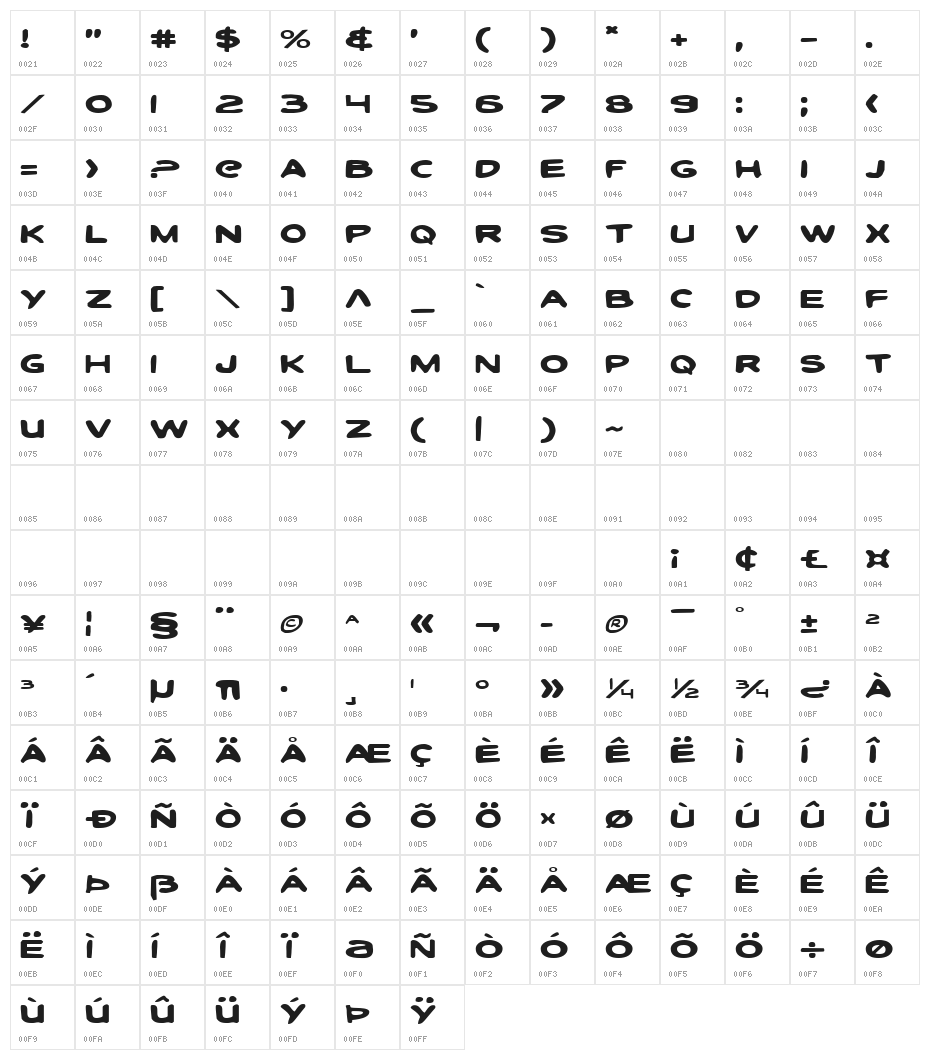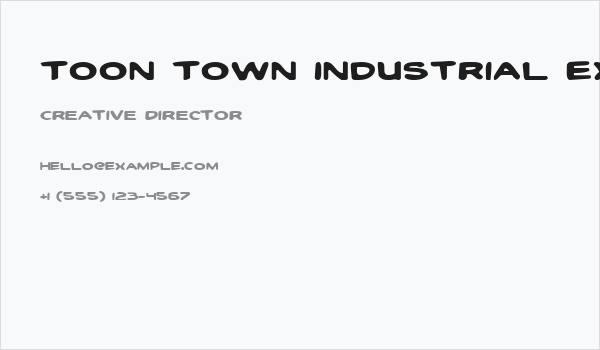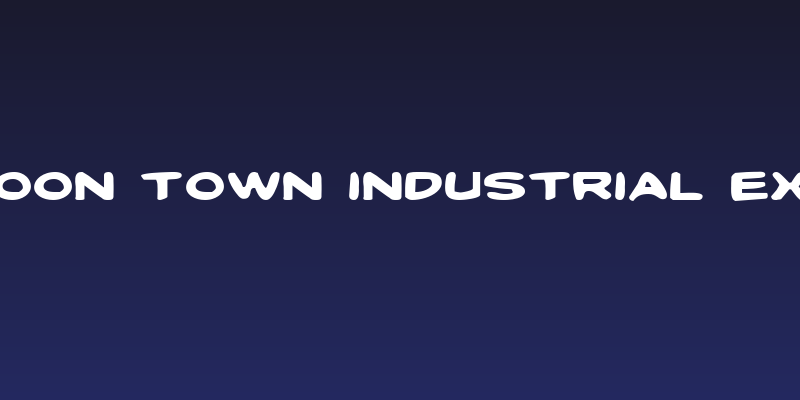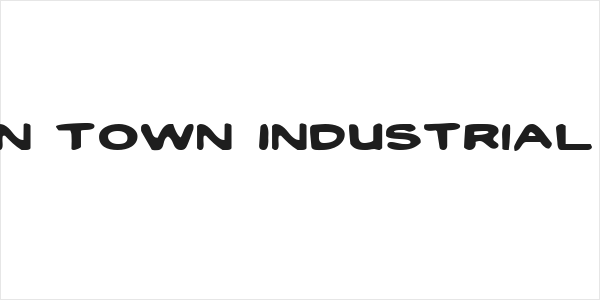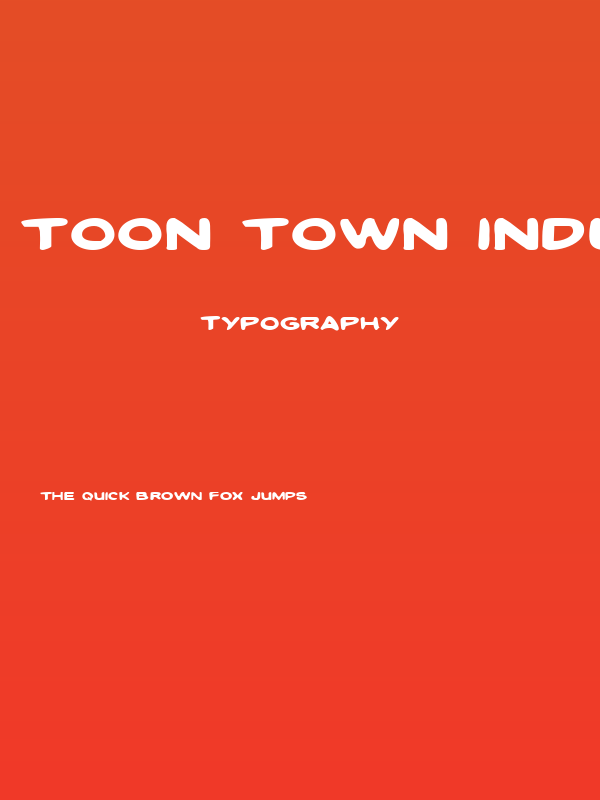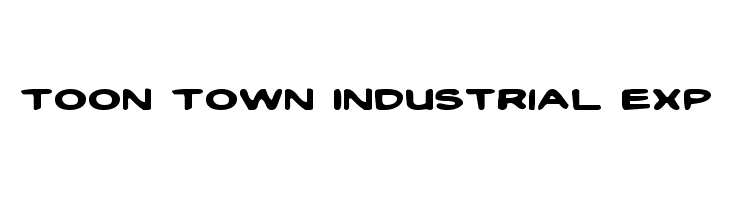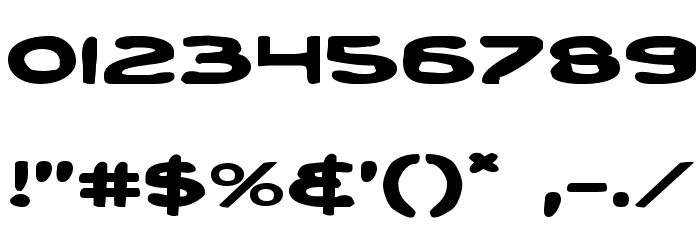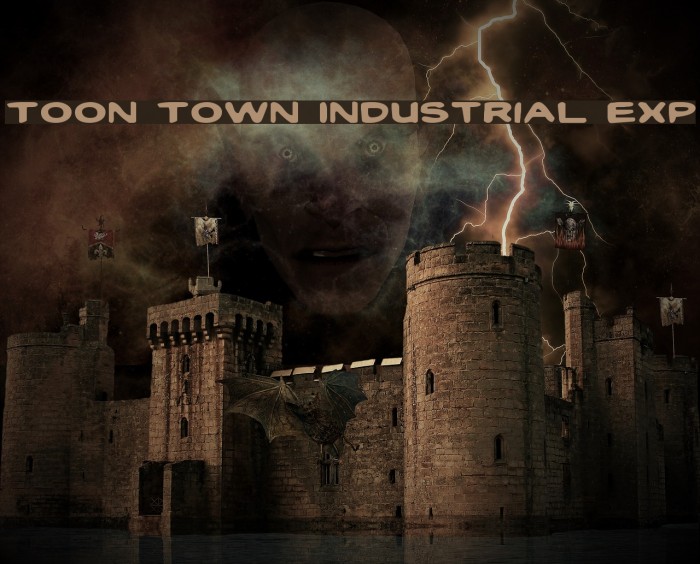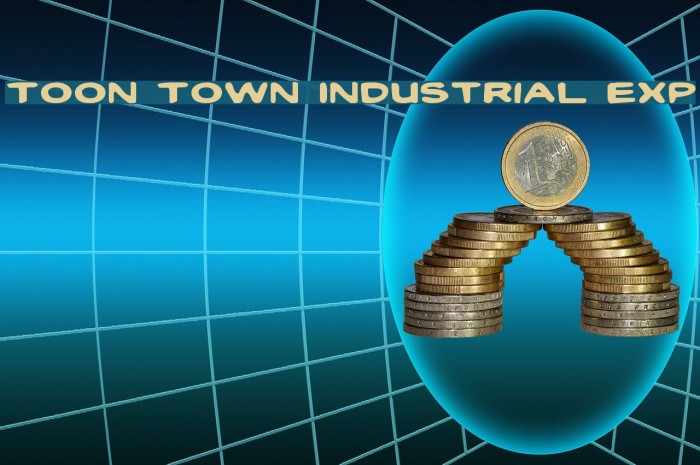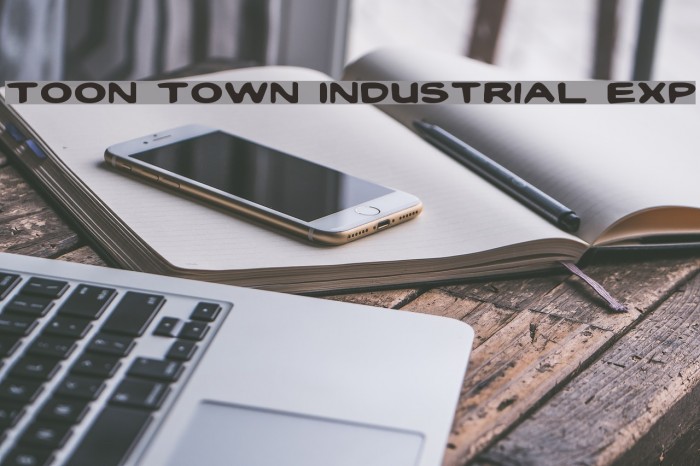
Toon Town Industrial Exp Font
Toon Town Industrial Exp Description
This playful and bold font features rounded, cartoon-like characters with a slightly industrial edge. The letters are thick and have a consistent stroke width, giving them a strong presence on the page. The rounded edges and playful curves add a whimsical touch, making it ideal for creative and fun projects. The numbers and special characters maintain the same playful style, ensuring consistency across all text elements. This font is perfect for capturing attention and conveying a sense of fun and creativity.
| Overall Style | Playful, Cartoonish |
| Proposed Projects | Ideal for children's books, comic strips, playful branding, and creative posters. |